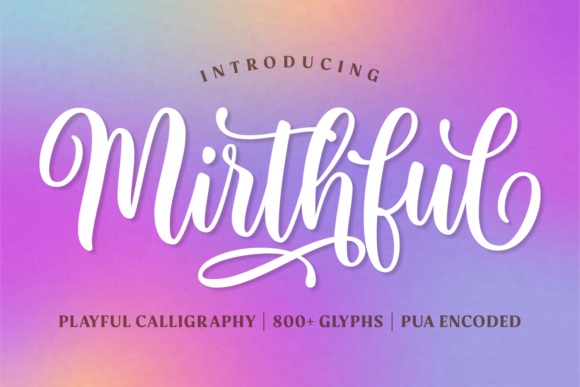
Embark on a delightful typographic journey with Mirthful Font, an exquisite script font crafted by the skilled hands of Situjuh. This charming font exudes an aura of joy and romance, making it an ideal choice for capturing the essence of life's most cherished moments.
With its delicate curves and flowing lines, Mirthful Font possesses a graceful elegance that will elevate your designs to new heights. Its soft edges and subtle details evoke a sense of warmth and intimacy, drawing the viewer's attention to the heartfelt messages you wish to convey.
Whether you're designing wedding invitations, heartfelt love letters, or whimsical greeting cards, Mirthful Font will effortlessly infuse your creations with a touch of enchantment. Its versatility extends beyond the realm of romance, lending its charm to a wide range of projects, including branding, social media graphics, and packaging design.
Step into a world of boundless creativity with Mirthful Font. Let your imagination soar as you explore the myriad possibilities this enchanting script font offers. Its user-friendly format ensures seamless integration into your design software, allowing you to effortlessly weave your artistic vision into reality.